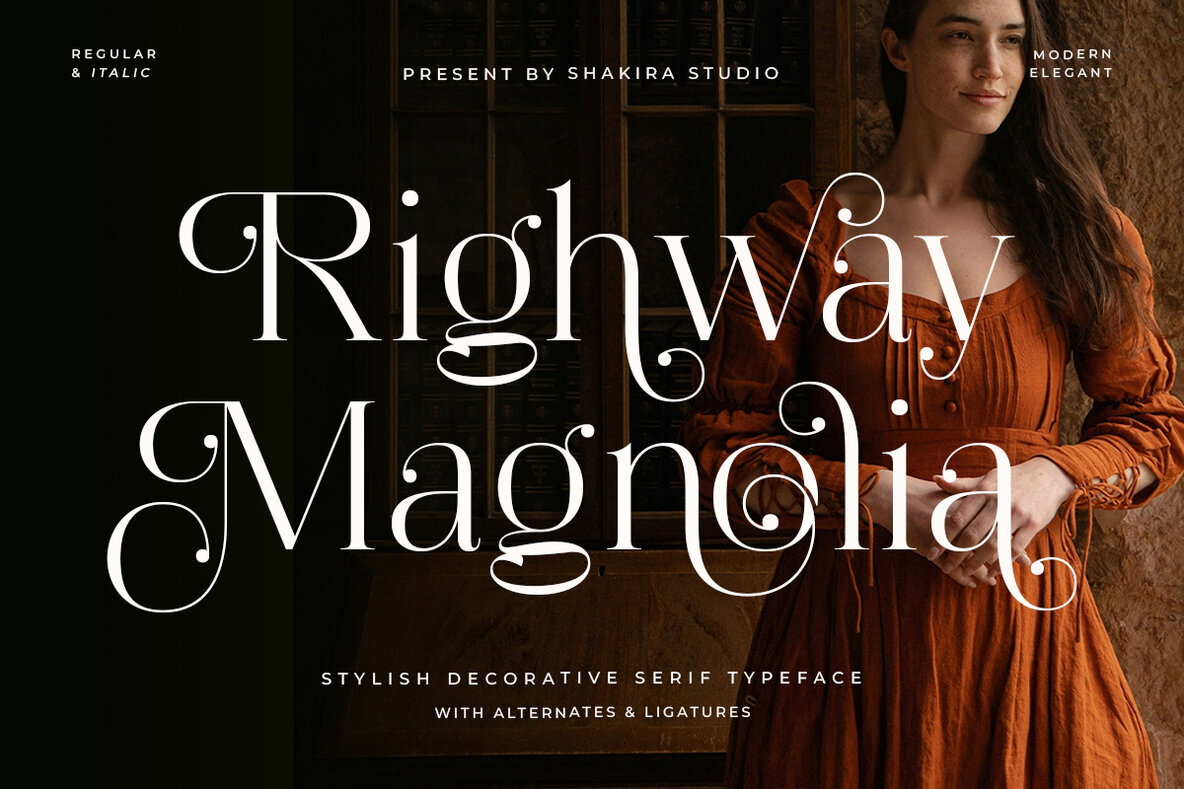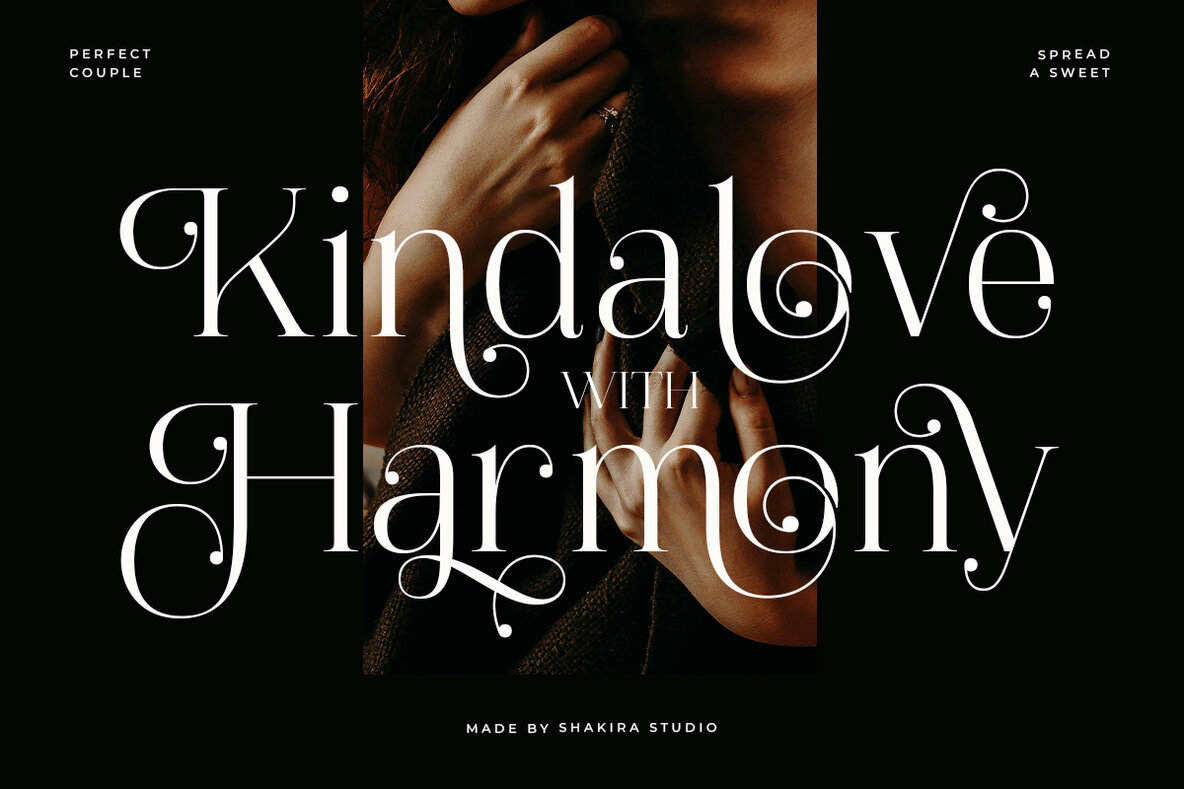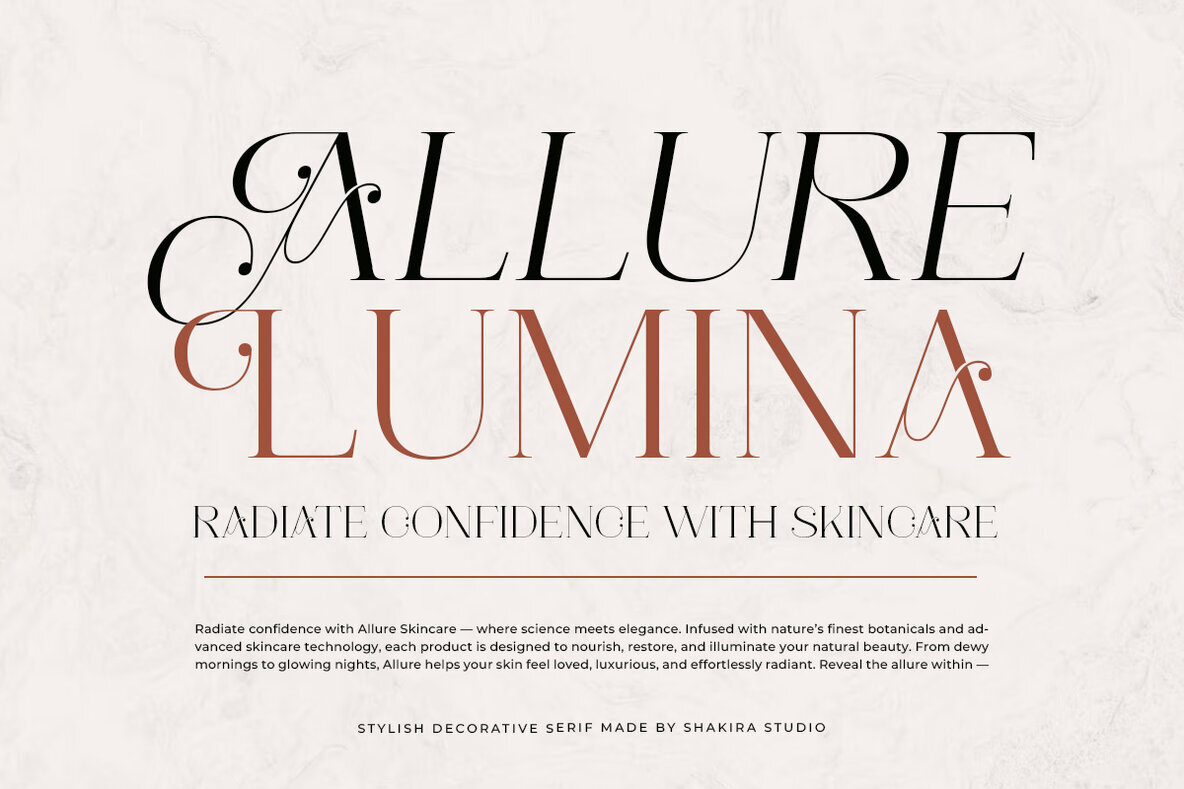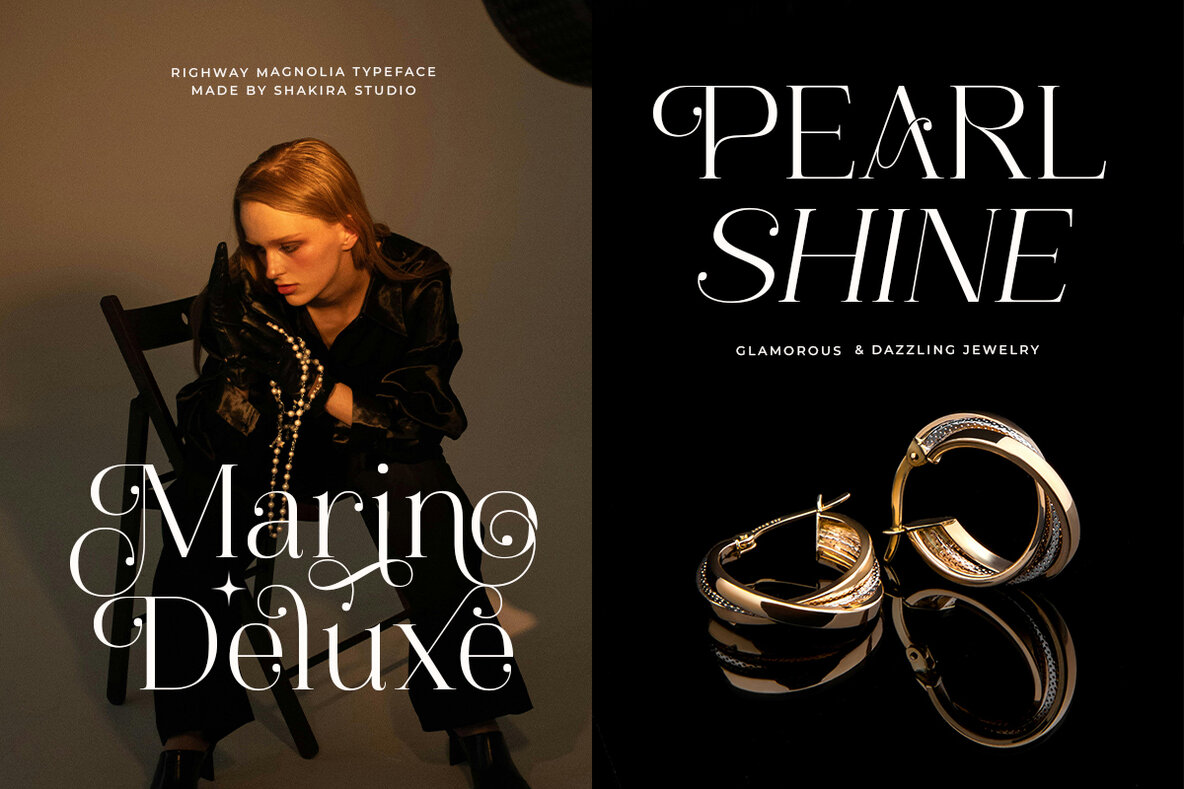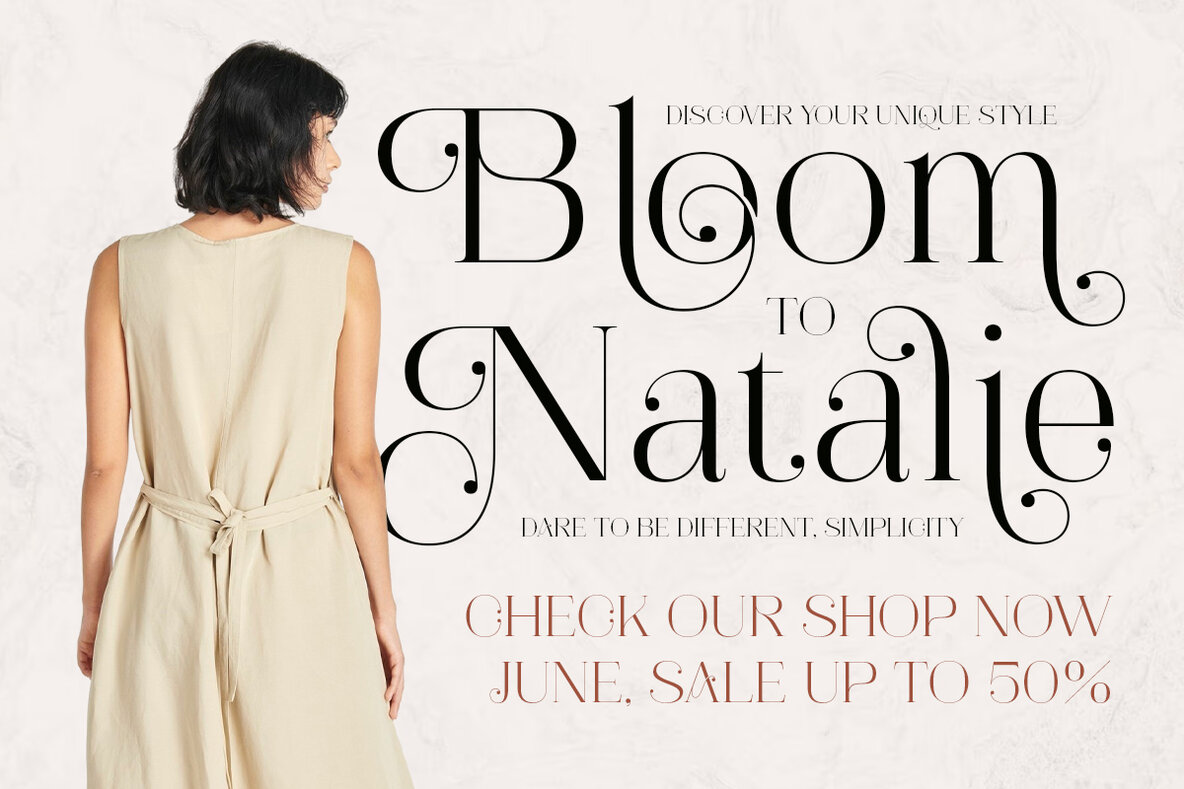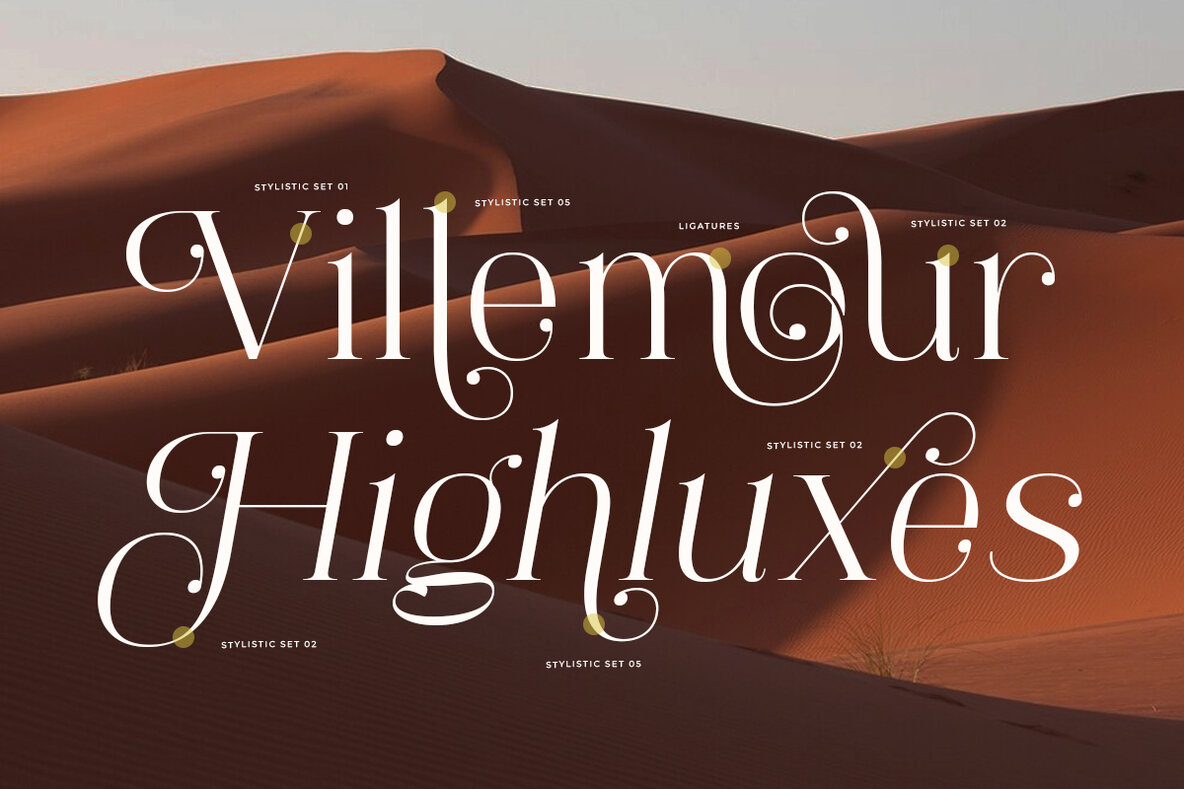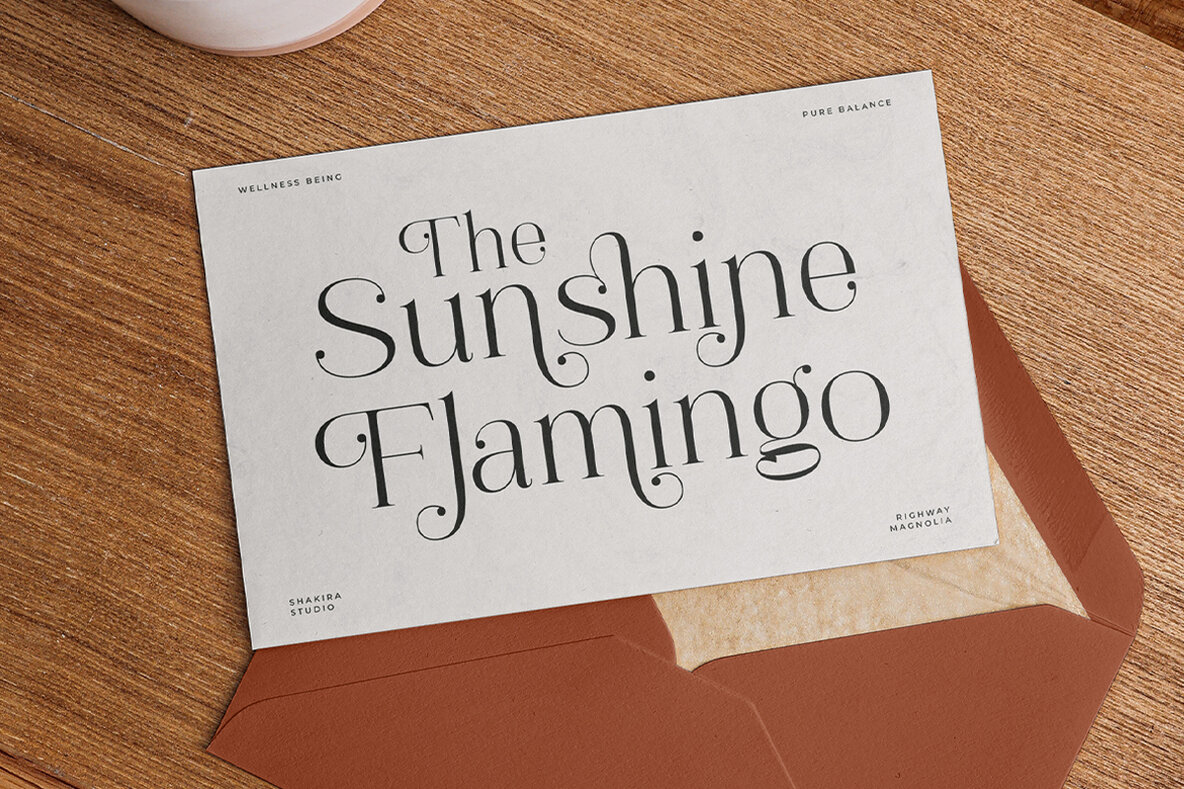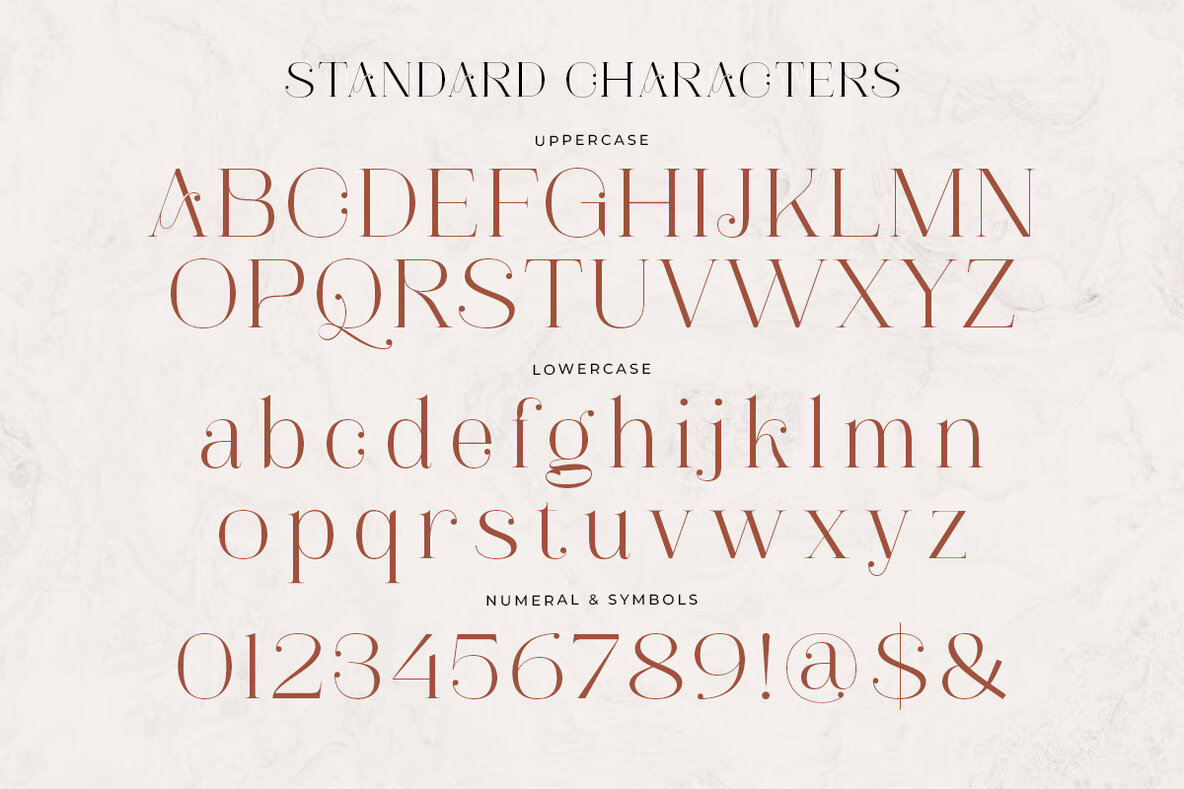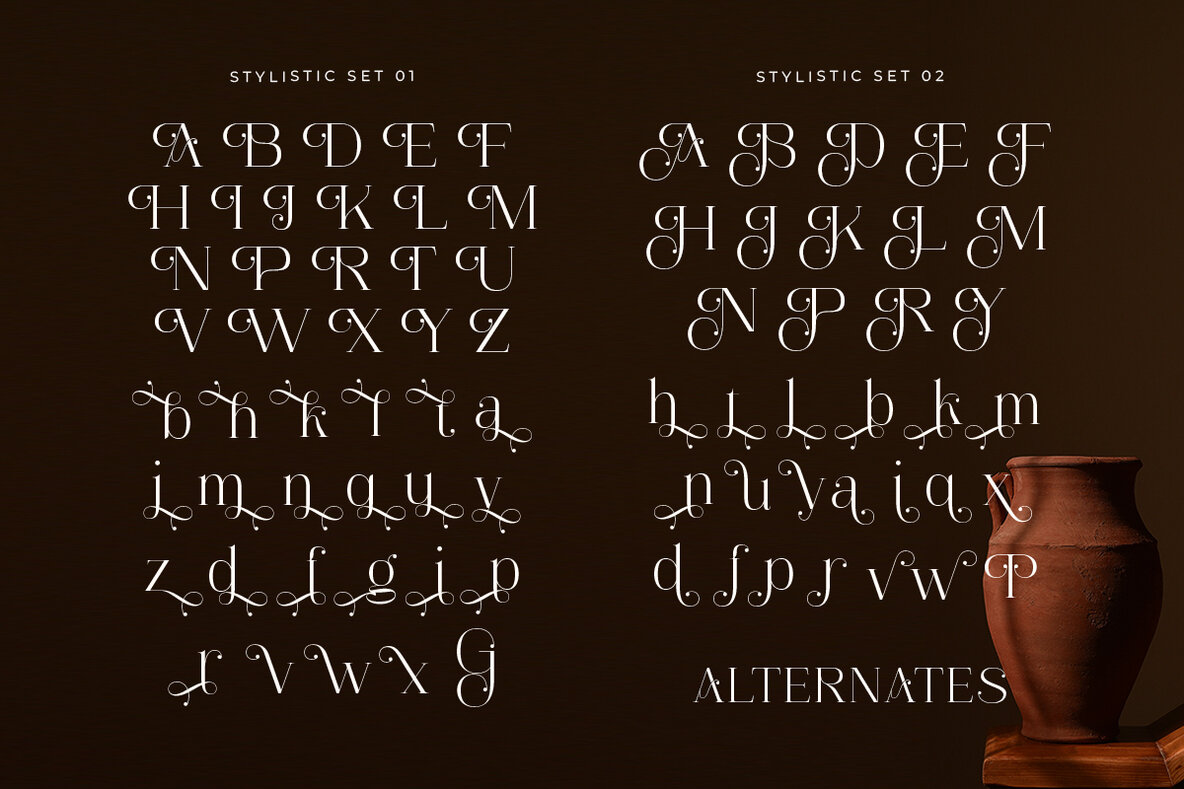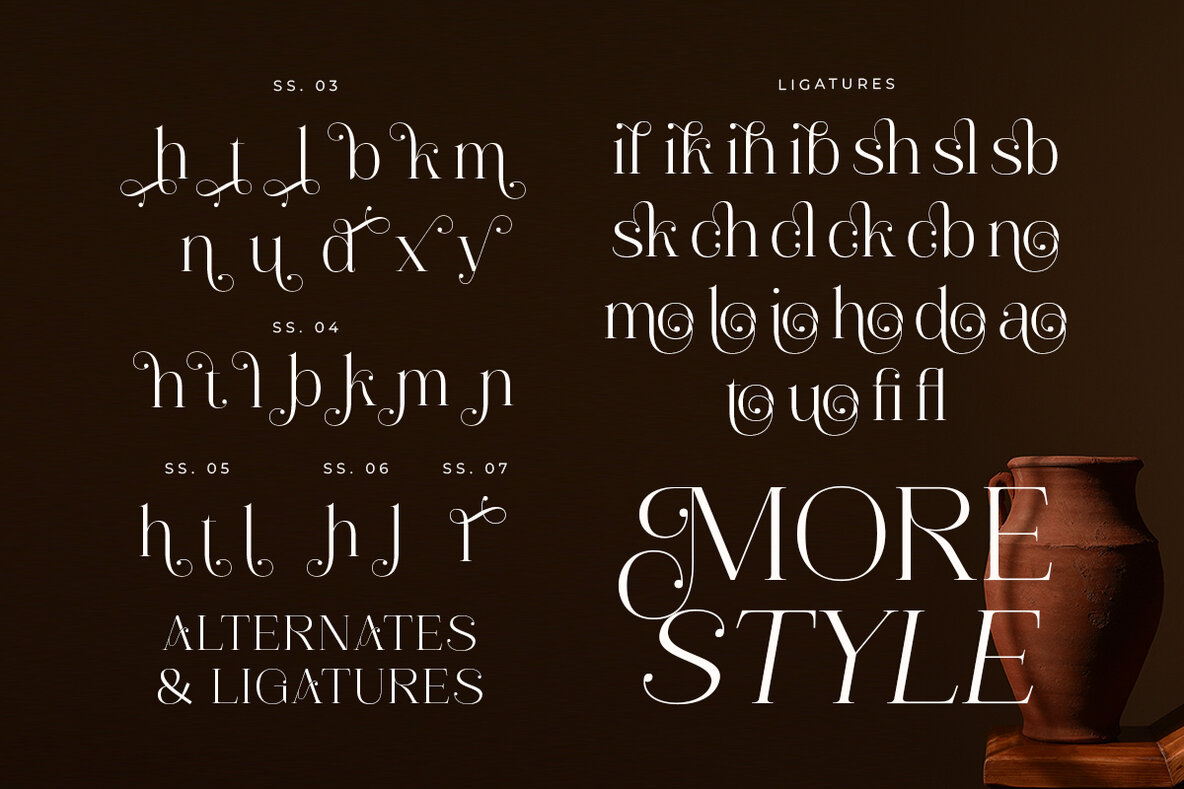
Righway Magnolia Font
Righway Magnolia redefines sophistication with its breathtaking serif design, characterized by graceful curves and refined details. Available in both Regular and Italic styles, this carefully crafted typeface includes exquisite alternates and ligatures. It's the ideal choice for luxury branding, high-end logos, premium packaging, and editorial designs that demand timeless elegance. With its delicate serifs and flowing italic variant, Righway Magnolia offers remarkable versatility for discerning brands. The intricately designed alternates and ligatures ensure flawless typographic harmony, making it perfect for creating distinctive visual identities with an air of exclusivity. Ideal for luxury fashion branding, high-end cosmetic packaging, premium editorial layouts, elegant logo creation, and sophisticated wedding suites. Experience the timeless elegance of Righway Magnolia available now!Righway Magnolia: Elegant Luxury Serif Font for Premium Branding
Timeless Beauty Meets Modern Luxury
Premium Features